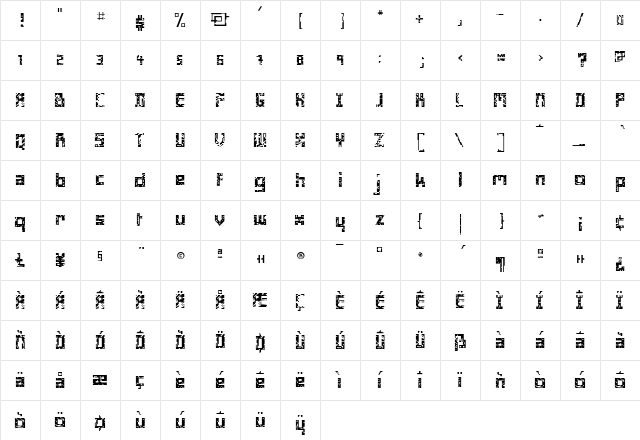
Minimum Crible Regular
Design Context for Minimum Crible Typeface
Minimum Crible is a composed and adaptable typeface that performs quietly and consistently across a wide range of design contexts.